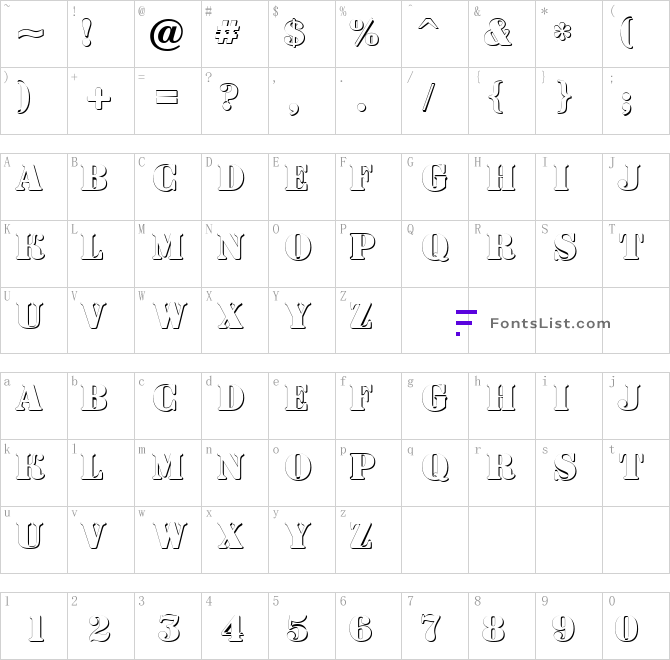
- Font Name:a_Dodger3Dxtr
a_Dodger3Dxtr-Bold.ttf is a very beautiful artistic font, a_Dodger3Dxtr-Bold.ttf is widely used in the design and printing of various books and pictures,a_Dodger3Dxtr-Bold.ttf has a strong visual impact,a_Dodger3Dxtr-Bold.ttf is a commonly used font in newspapers, magazines and books, and is used in posters, e-commerce Poster design, store design, logo design, font design and other fields.a_Dodger3Dxtr-Bold.